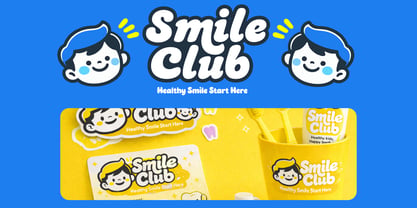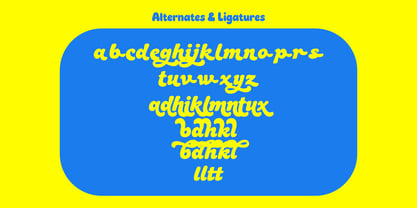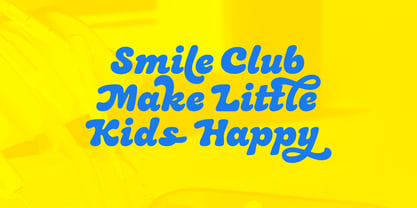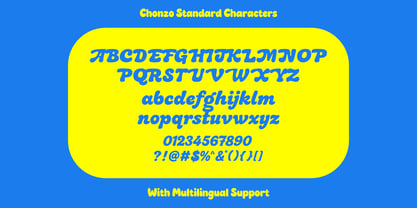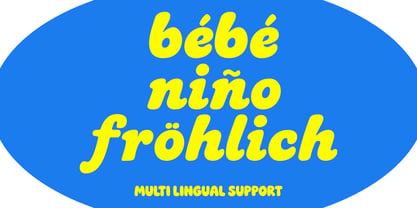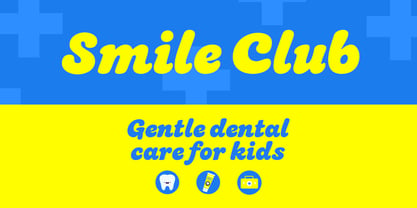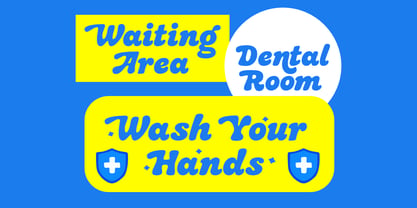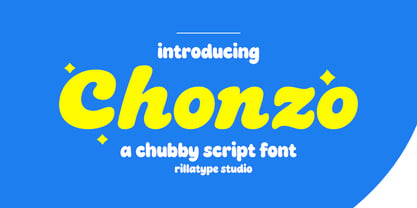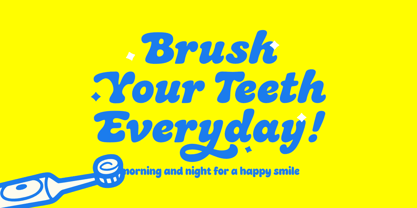
RT Chonzo
by Rillatype
The RT Chonzo Font Family was designed by Gustian Agung Asprilla and published by Rillatype. RT Chonzo contains 1 styles. More about this family
Chonzo is a chubby script font with thick strokes, rounded shapes, and a playful handwritten feel. The letters look bold, soft, and friendly, giving off a cheerful and energetic vibe that feels fun and approachable. It works great for headlines, posters, packaging text, social media graphics, and branding designs that want a bright and easygoing look. Features : Uppercase & lowercase Numbers and punctuation Alternates or Ligatures Multilingual support & PUA encoded Thank You